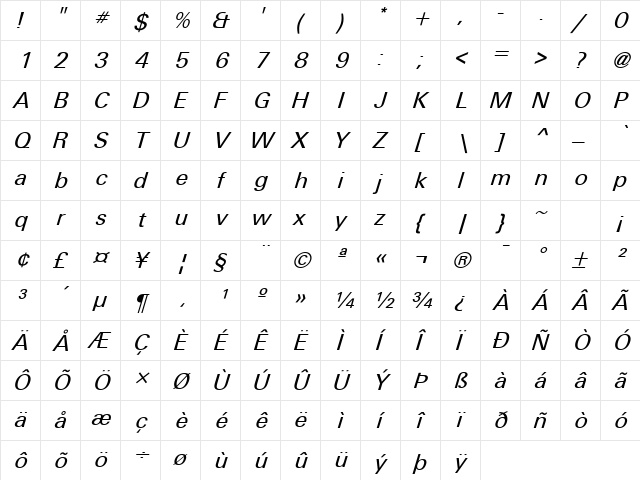
Unique ITALIC
Design Context for Unique Typeface
Unique is a composed and adaptable typeface that performs quietly and consistently across a wide range of design contexts. The dynamic lean of this cut emphasises speed and emphasis in any layout.
Pro Tip: Try Unique for annotation and caption copy alongside an upright companion — the contrast in angle creates a dynamic but ordered typographic system.